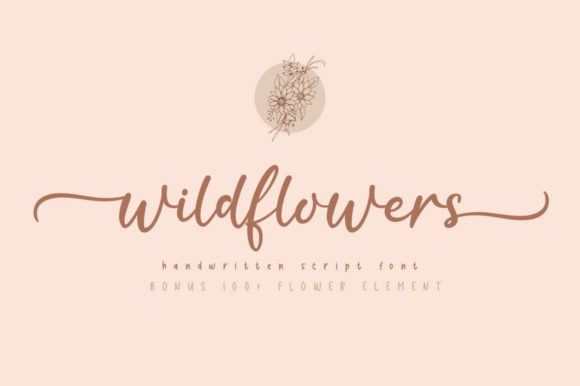
If you're looking for a romantic and sweet script font for your flower shop or any design project, Wildflower Font by Graphix Line Studio is the perfect choice for you. This exquisite calligraphy typeface will add a luxurious touch to your creations and make them stand out from the crowd.
With characters that dance along the baseline, Wildflower Font captures the essence of romance and elegance. Its PUA encoding allows for easy access to all of its amazing glyphs and ligatures, making it a breeze to use in any design project.
Imagine using Wildflower Font for your wedding invitations, greeting cards, branding materials, or website design. The possibilities are endless with this versatile and captivating font.
Not only does Wildflower Font look amazing, but it also has the power to evoke emotions and feelings. Its delicate and graceful strokes will make your customers feel loved, cherished, and appreciated. This font is perfect for anyone looking to create a warm and welcoming atmosphere for their audience.
In summary, Wildflower Font is not just another script font. It's a font that will capture your heart and make your designs shine. With its romantic and sweet character, it's perfect for any flower shop or anyone looking to add a touch of luxury and elegance to their creations.